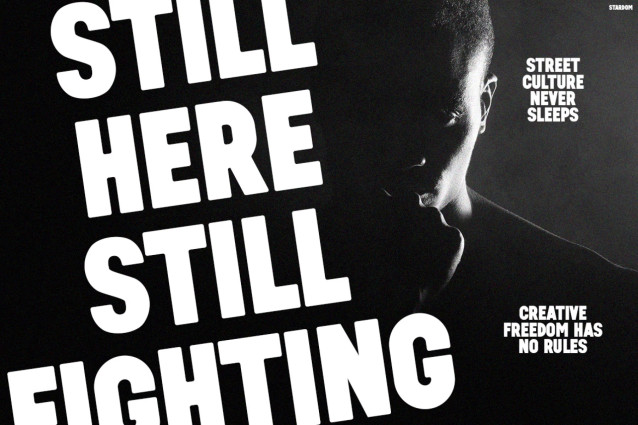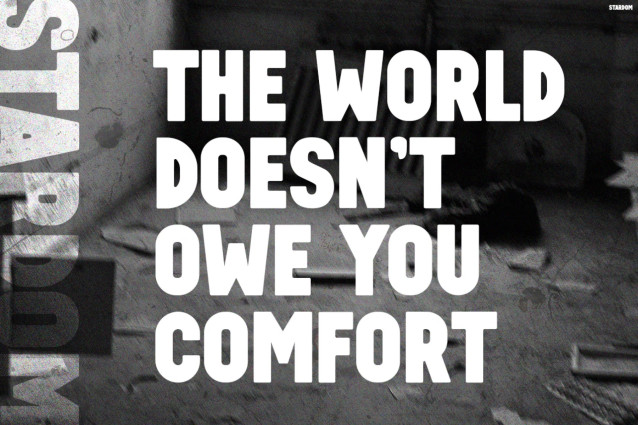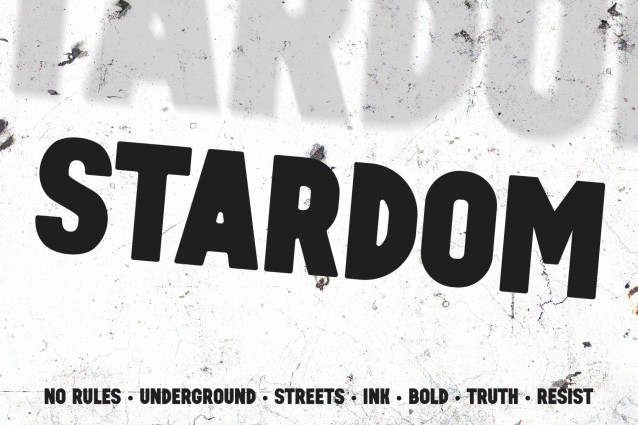
STARDOM Sans Serif Font
STARDOM is a bold display font that fuses raw street aesthetics with modern graphic impact. From the very first glance, its heavy letterforms and distressed texture create an unapologetic visual presence. Moreover, the rugged details deliver an authentic underground vibe that instantly grabs attention. As a result, every headline feels louder, stronger, and impossible to ignore. At the same time, the bold construction keeps every word highly readable across both digital and print media.